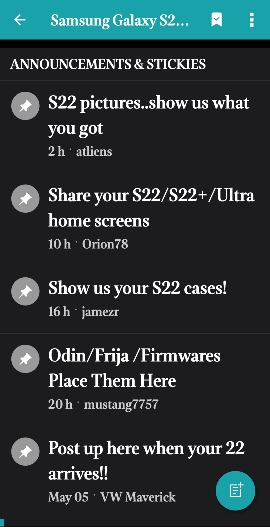
I actually also like the one you posted DFUniqueBasics too. I might get that as well.
Isn't it funny how a font change can change your whole phone experience?!
Thanks! You're right about the font changing the experience.I actually also like the one you posted DFUniqueBasics too. I might get that as well.
Isn't it funny how a font change can change your whole phone experience?!
So after downloading quite few fonts I think I'm going to stick with this one called Casablanca. It's been easy to read and not hard on the eyes.![]()
Its a good font and was my go-to for years.I've been stuck on bauhaus for quite a while now. Keep going back to it.